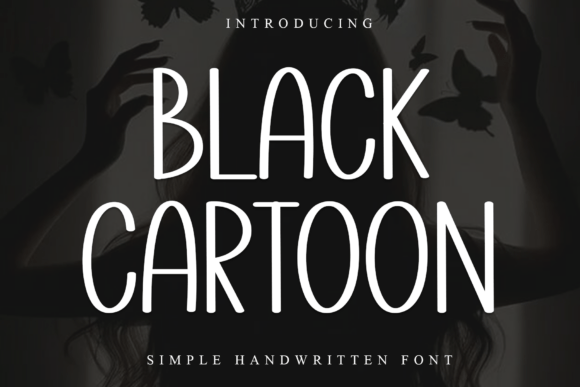
The Ultimate Guide to Black Cartoon Font: Adding a Touch of Whimsy to Your Designs
Have you ever been working on a design project, and suddenly, you’re stuck on finding the perfect font? I recall a recent experience where I was tasked with creating a children’s book, and I needed a font that was playful, yet legible. After scouring through numerous font libraries, I stumbled upon the Black Cartoon font – a simple handwritten sans-serif display font that instantly captured the essence of fun and playfulness. In this article, we’ll dive into the world of Black Cartoon font, exploring its features, uses, and tips on how to make the most of this delightful font.
A Personal Review: What I Love About Black Cartoon Font
Here’s what makes Black Cartoon font a standout in my book:
- ✨ Playful yet legible: The tall, clean, and quirky letterforms make it perfect for projects that require a touch of fun while maintaining readability.
- ✅ Versatile: This font works beautifully for both digital and print design, making it a great addition to your font library.
- 💡 Easy to pair: Its simplicity ensures it pairs well with bold colors and creative layouts, giving you endless design possibilities.
While Black Cartoon font is an excellent choice for many projects, there are a few minor considerations to keep in mind:
- ⚠️ Limited formal applications: Due to its playful nature, this font might not be the best fit for formal or professional projects that require a more serious tone.
- 🤔 Legibility at small sizes: As with many handwritten fonts, Black Cartoon may lose legibility when used at very small sizes, so it’s best used at larger sizes or in headlines.
The Story Behind Black Cartoon Font
Black Cartoon font was designed with the intention of creating a playful, yet simple font that captures the essence of childhood wonder. The designer aimed to create a font that would bring a smile to people’s faces while still being legible and versatile. With its clean lines and quirky letterforms, Black Cartoon font has become a popular choice among designers and crafters.
| What type of projects is Black Cartoon font best suited for? | Black Cartoon font is perfect for children’s books, comic-style graphics, posters, quotes, product packaging, branding, invitations, and social media posts. |
| Is Black Cartoon font suitable for formal projects? | No, due to its playful nature, Black Cartoon font is best used for informal or creative projects. |
| Does Black Cartoon font support OpenType features? | Yes, Black Cartoon font supports OpenType features, glyphs, and stylistic alternates, allowing for more creative freedom. |
In conclusion, Black Cartoon font is a delightful addition to any design project that requires a touch of whimsy and playfulness. With its clean lines, quirky letterforms, and versatility, it’s perfect for designers, crafters, and creative hobbyists looking to add a dash of fun to their work.